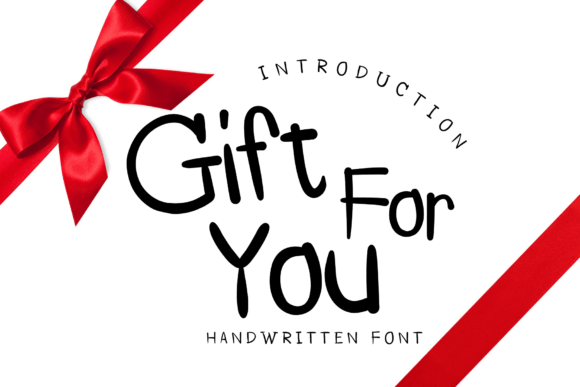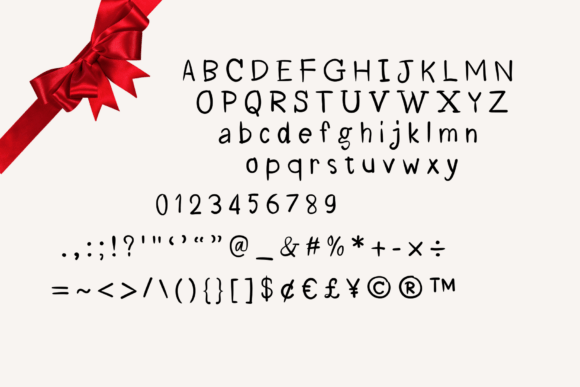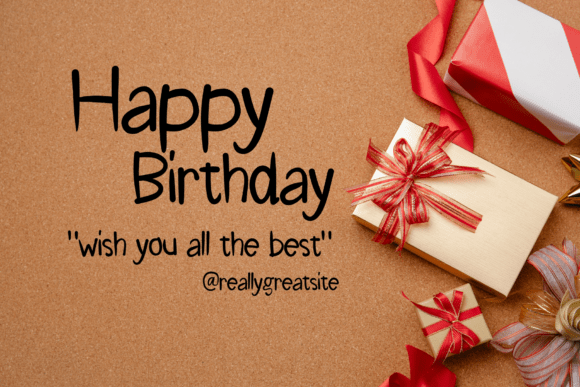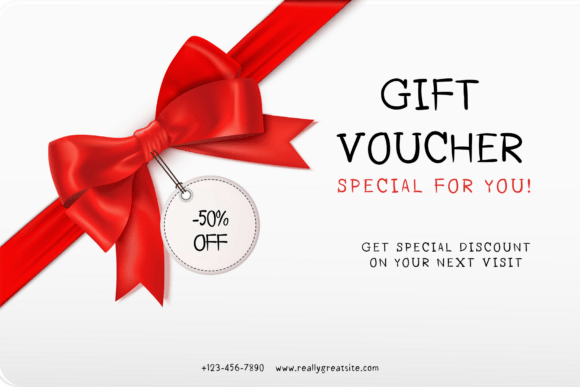
Gift for You Font: A Cute Handwritten Font for Cricut & DIY Projects
About the Gift for You Font
Add a touch of class to your work with the Gift for You Font, a truly exceptional typeface. Gift for You is a handwritten fonts. You can use it for taking notes, writing a diary, or making greeting cards. However, you can still use it for other designs, such as banners, content, mugs, cards, shirts, stationery, social media posts, and more!
Its informal, friendly character makes it ideal for projects needing a personal touch, such as wedding invitations, handwritten-style logos, or social media graphics. It works well in headlines, short blocks of text, and packaging where a casual, approachable feel is desired. However, its low x-height and inconsistent stroke weights make it unsuitable for body copy or UI elements requiring high readability.
Gift for You pairs well with clean sans-serif fonts like Lato or Open Sans for a balanced contrast, or a more playful pairing could be achieved with a geometric sans-serif such as Futura or a script font like Great Vibes for a layered effect.
The overall personality is best described as friendly and approachable, conveying warmth and a handcrafted aesthetic. Avoid using it in contexts requiring professionalism or formality.
Gift for You Font Usage Examples
Gift for You Font Example